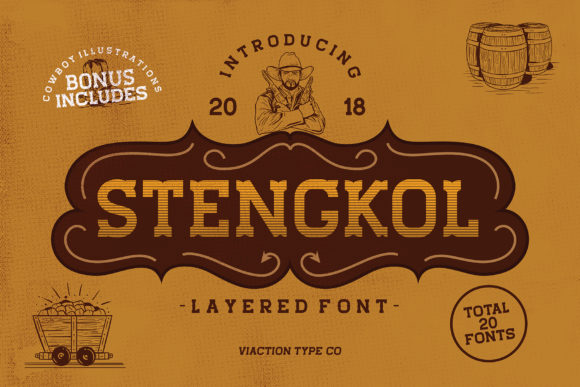
Introducing Stengkol Font - the perfect slab serif font family for your creative designs! With its striking look and 20 different weights, you can unleash your creativity and design unique and eye-catching projects.
Created by Viaction Type.Co, Stengkol Font boasts a bold and powerful appearance that will make your text stand out on any project. Whether you're creating a logo, poster, or website design, this font family is sure to impress.
But that's not all - when you download Stengkol Font, you'll also receive a bonus set of fun cowboy themed illustrations! These illustrations perfectly complement the font family and can be used to add a playful touch to any design.
Stengkol Font is not just another font family, it's a powerful tool for designers who want to take their work to the next level. With its wide range of weights, you can use this font family for anything from bold headlines to subtle body text. Plus, its slab serif style gives your text a modern and sophisticated look.
In summary, Stengkol Font is the perfect choice for anyone who wants to create eye-catching designs that stand out from the crowd. With its powerful appearance, versatile weights, and bonus illustrations, this font family is a must-have for any designer's toolkit. So what are you waiting for? Download Stengkol Font today and elevate your designs to the next level!